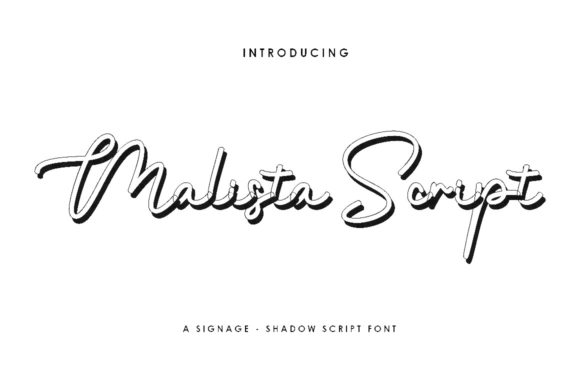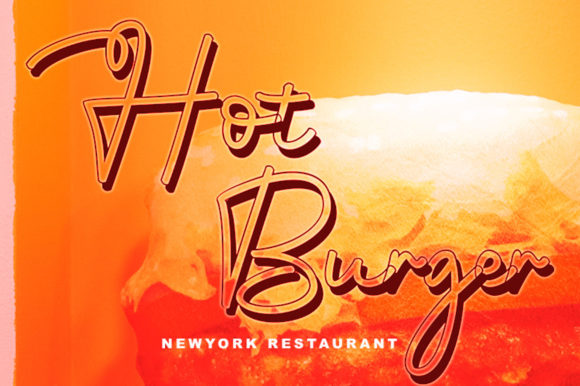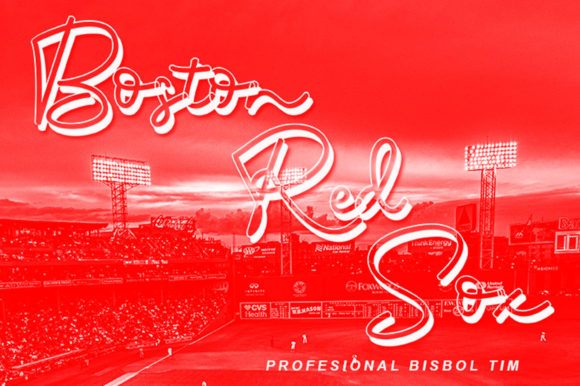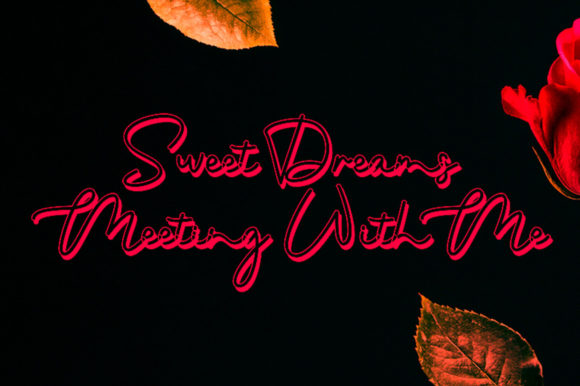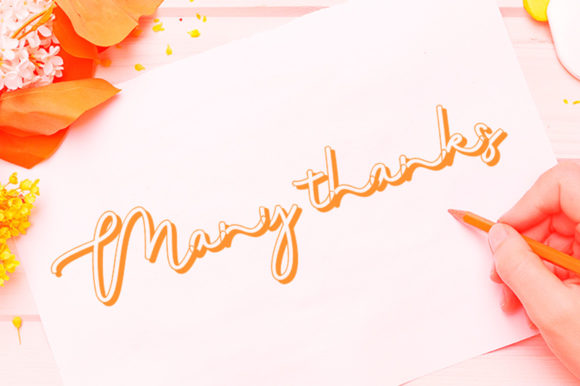
Malista Script Font
About Malista Script Font
Malista Script is an enchanting handwritten font. This versatile script font has a wide spectrum of applications ranging from greeting cards to headlines and is guaranteed to add a romantic feel to your next project.